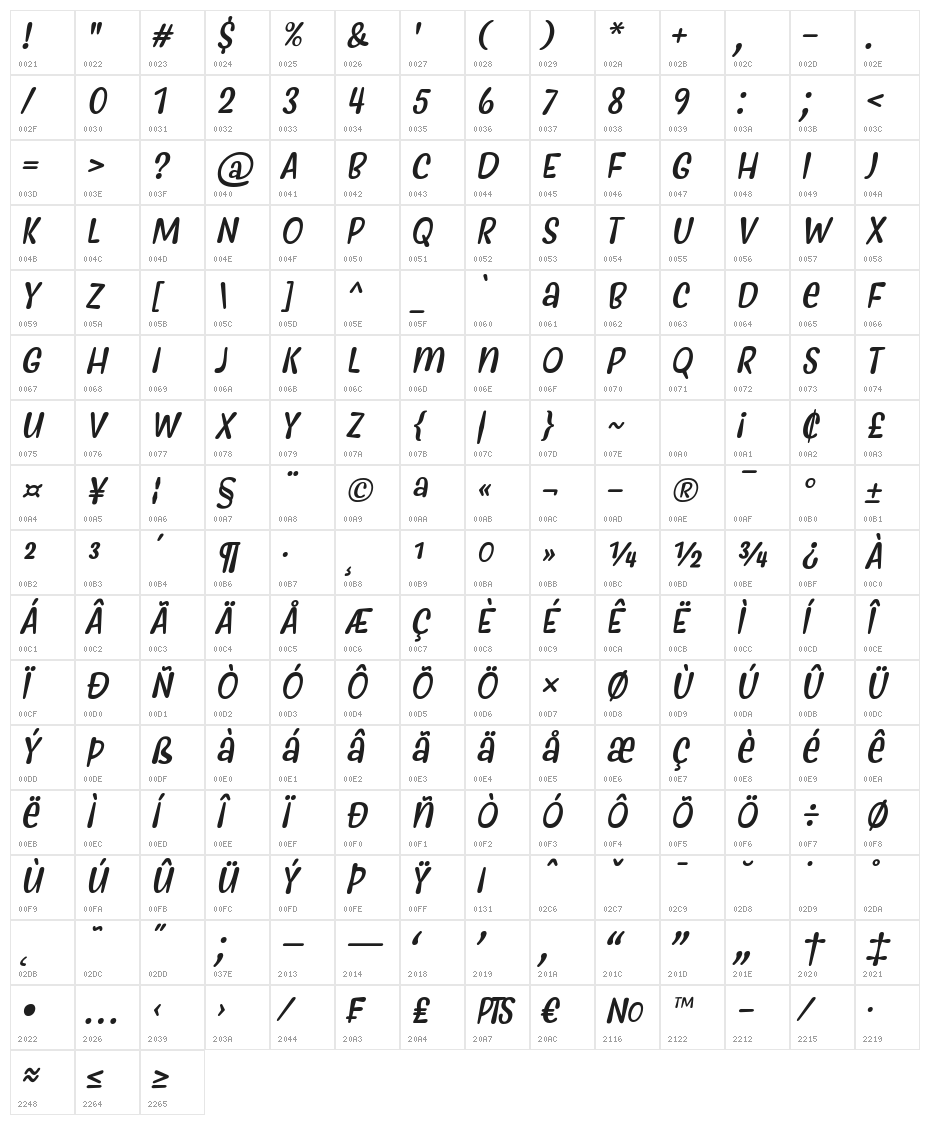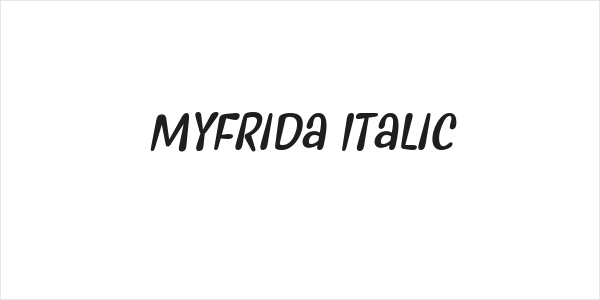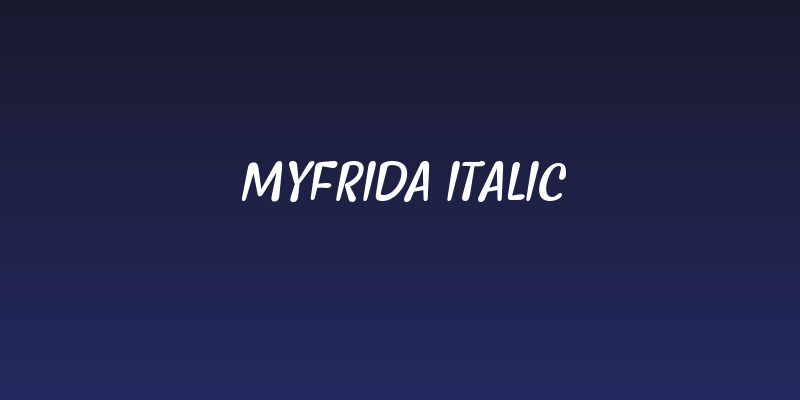
Myfrida Italic Font
Myfrida Italic Description
This font exhibits a dynamic and fluid style with a handwritten appearance, characterized by its smooth, flowing curves and slightly slanted letters. The strokes are consistent in width, providing a harmonious and balanced look. The uppercase and lowercase letters maintain a cohesive design, with rounded edges that enhance its approachable and friendly feel. The numbers and special characters are crafted with the same attention to detail, ensuring readability and aesthetic appeal. This font is versatile, suitable for projects that require a personal touch or a casual, yet polished, look.
| Proposed Projects | Ideal for greeting cards, invitations, personal branding, and creative projects that benefit from a personal, approachable touch. |